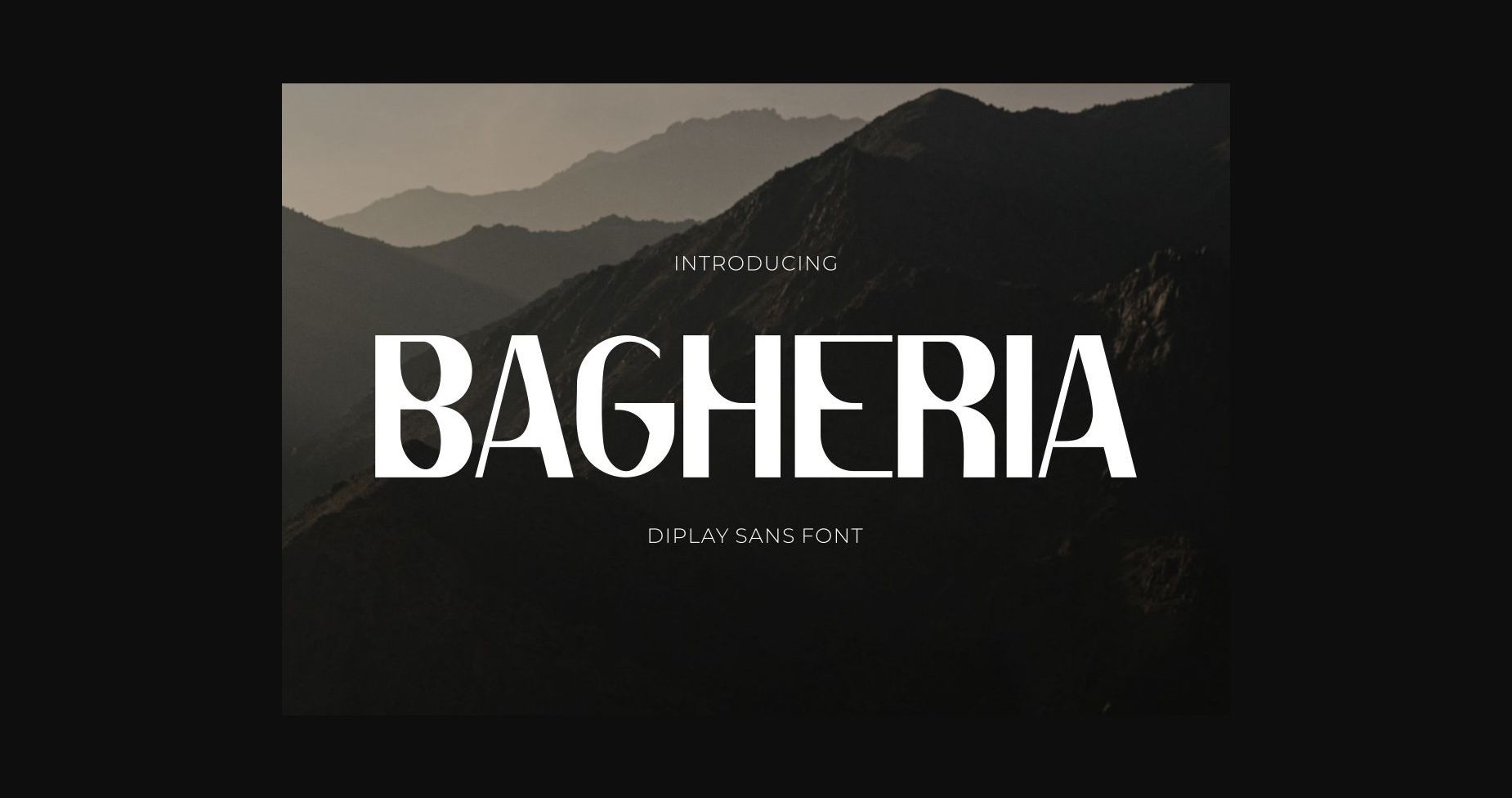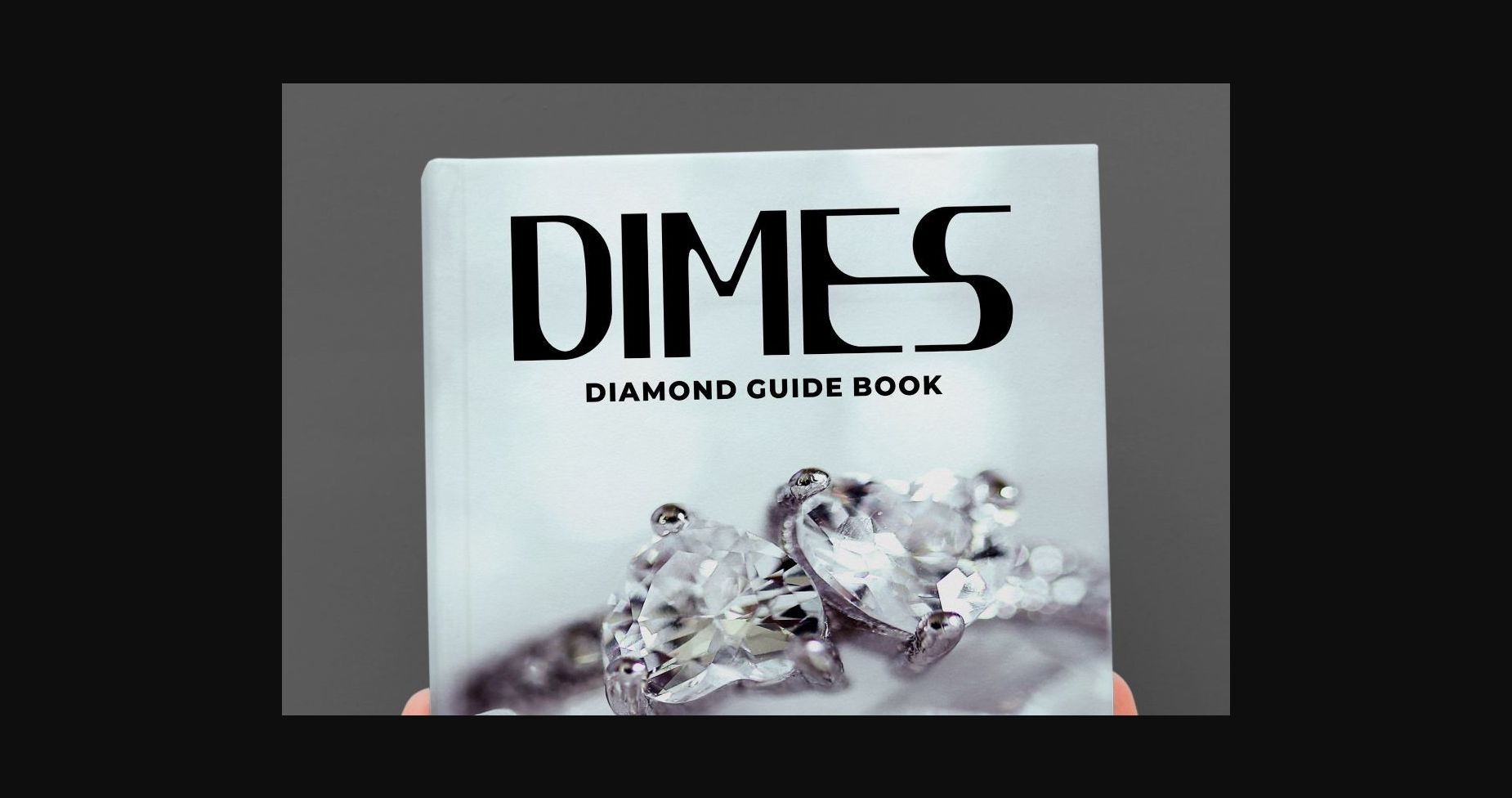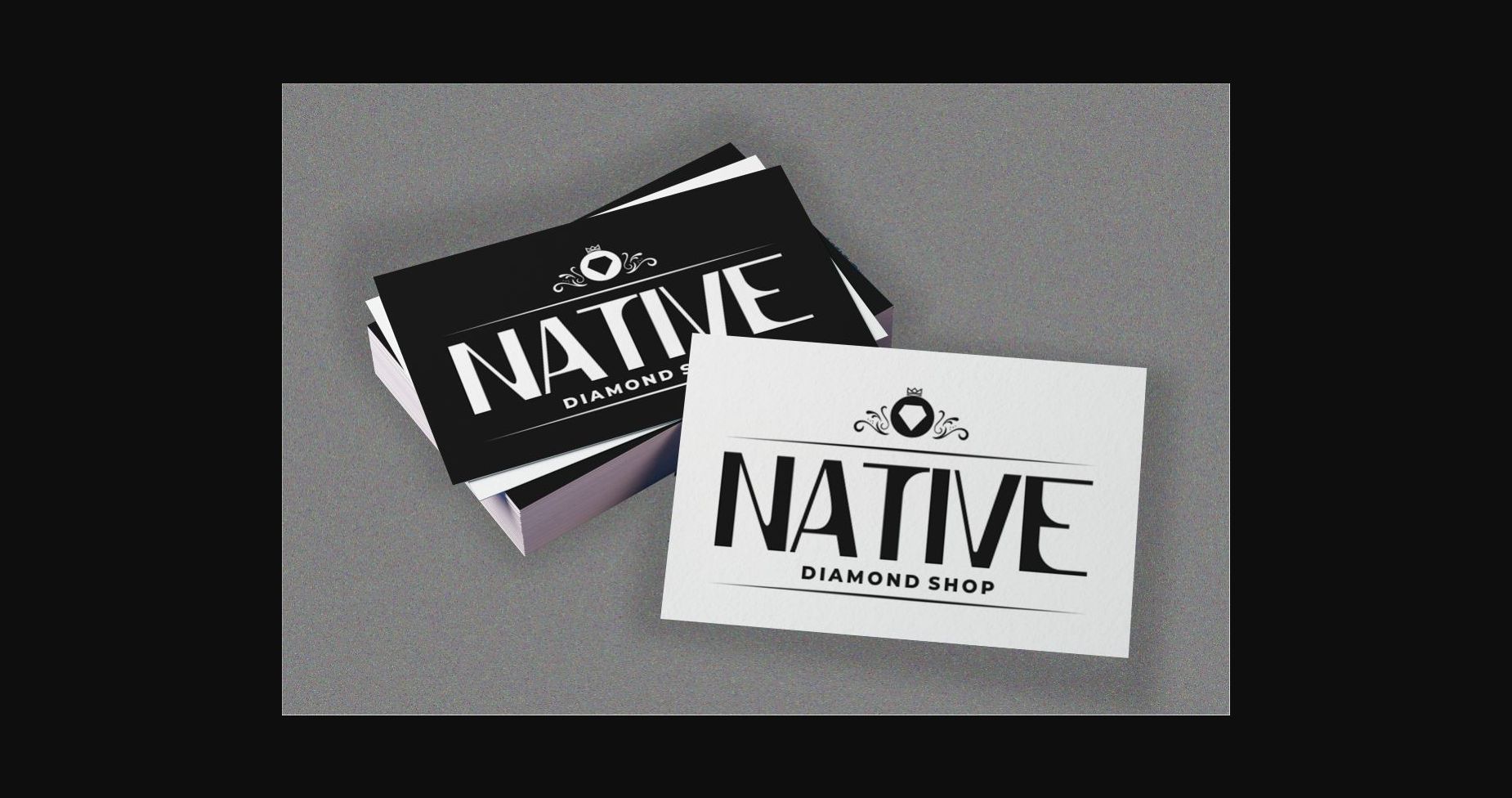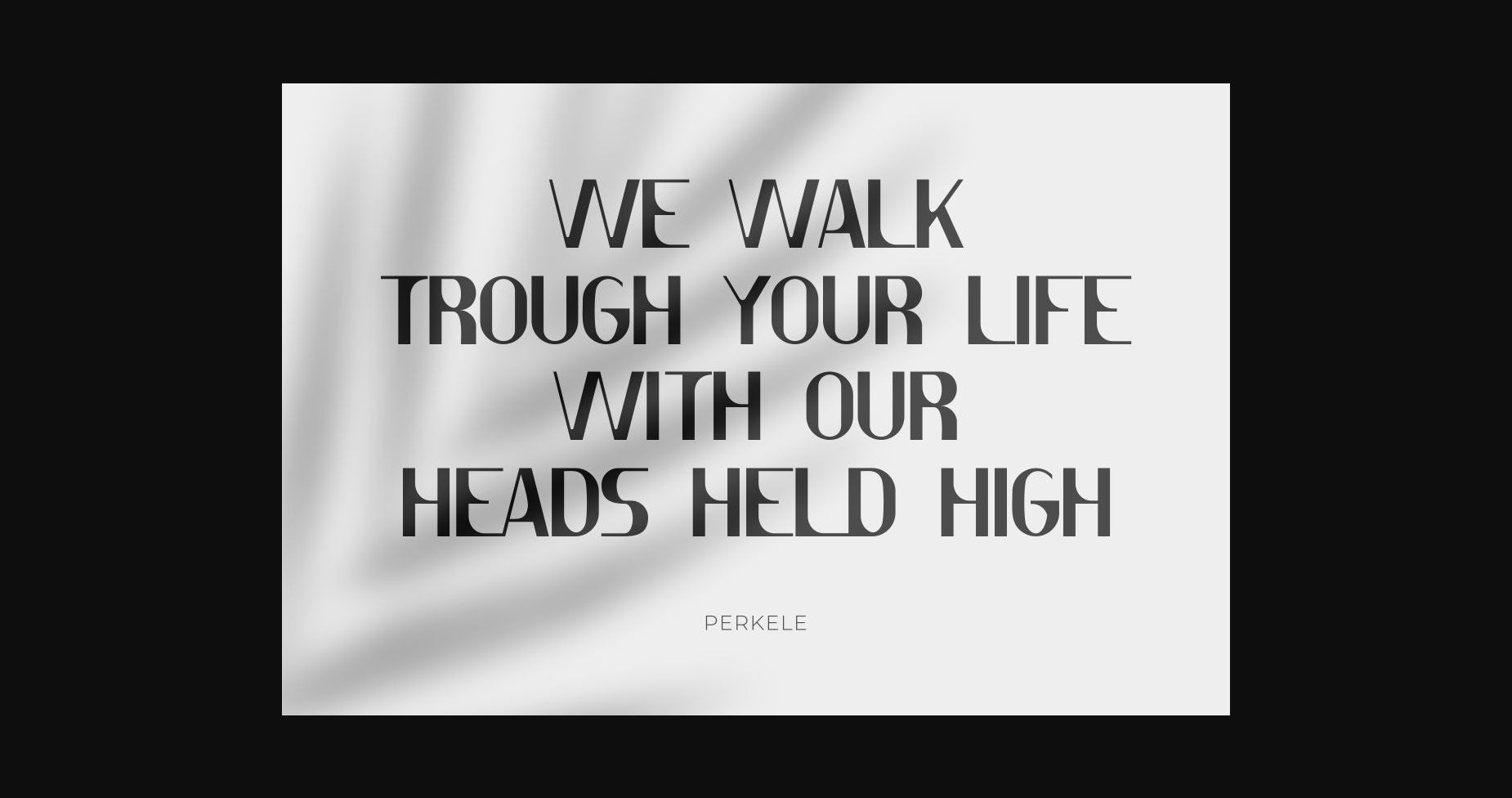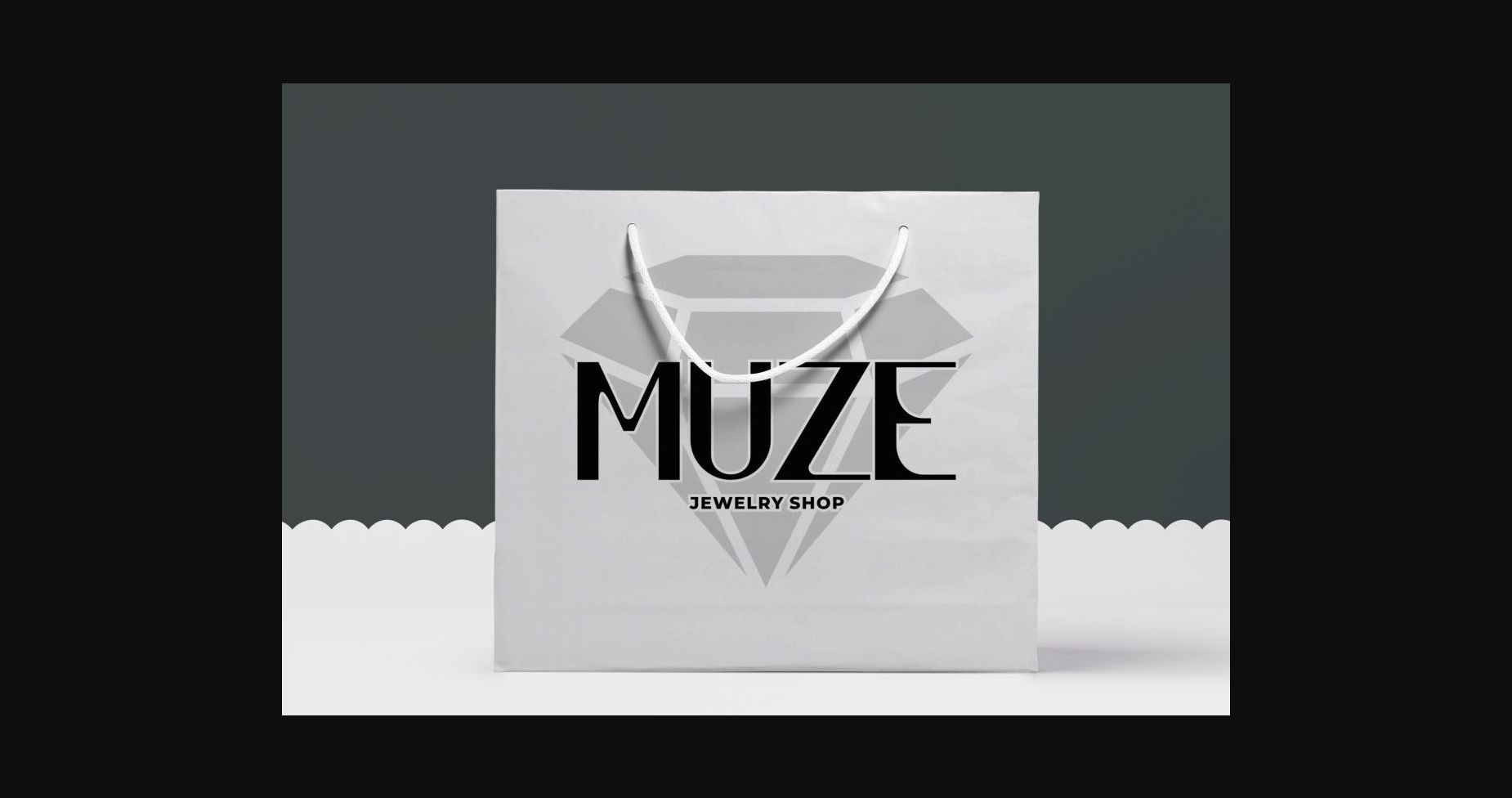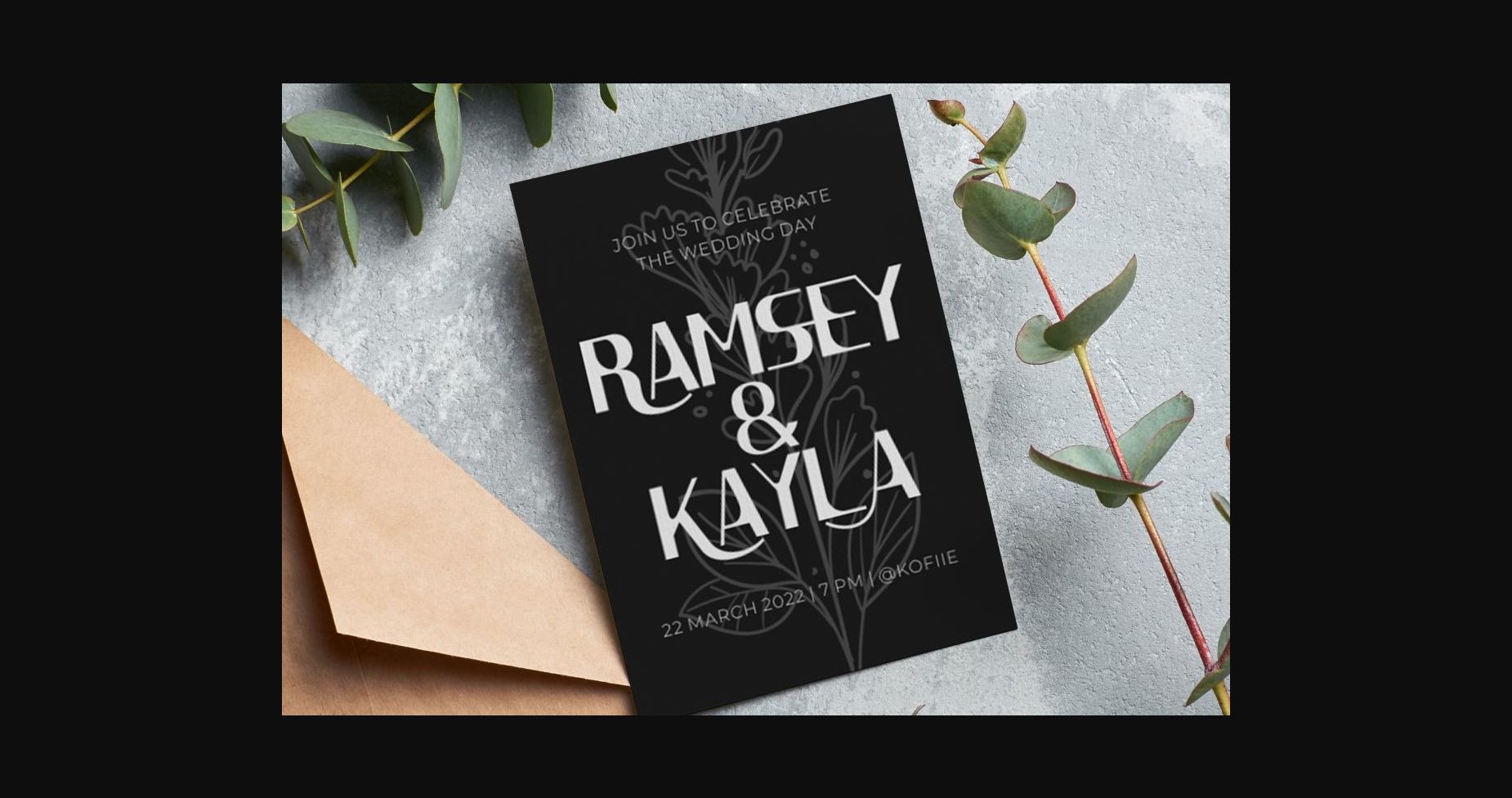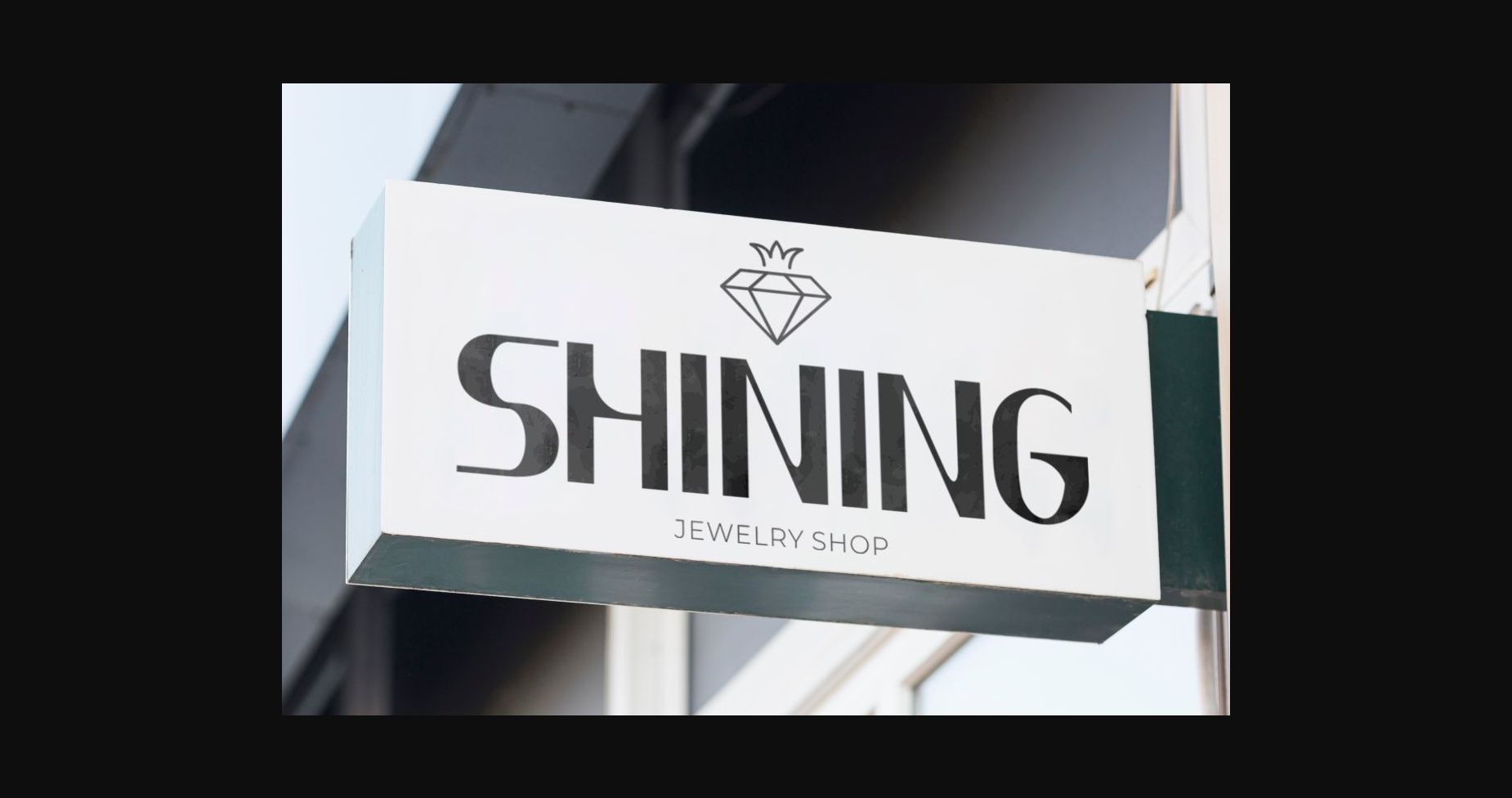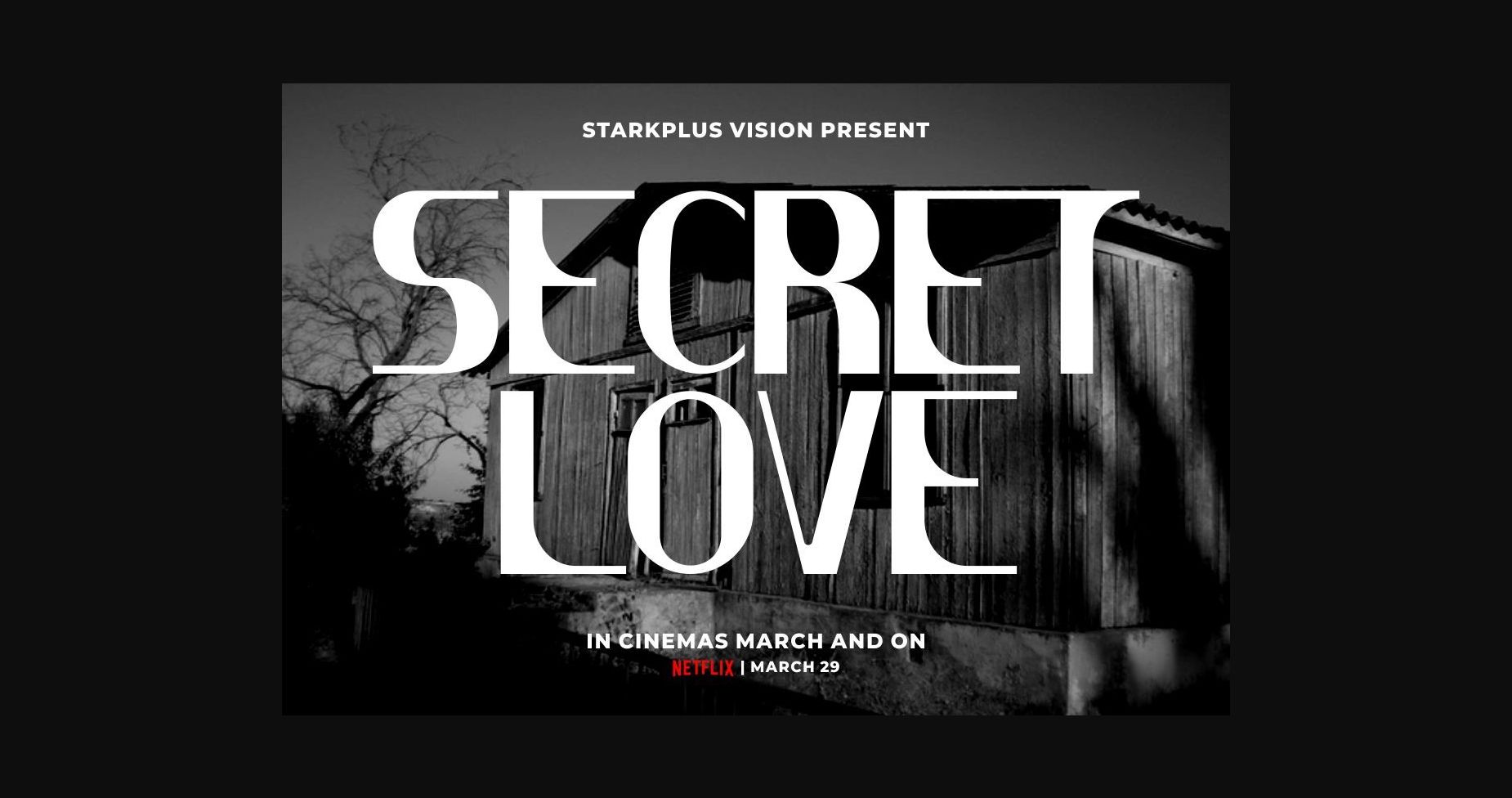
About Bagheria Font
Bagheria font makes for more fun, trendy and lively. This font is inspired by the bold font style and well-balanced curves. This font has a surprise from an alternate that will make your work even more beautiful.
Is perfect for a professional touch which makes it even more unique and classic.